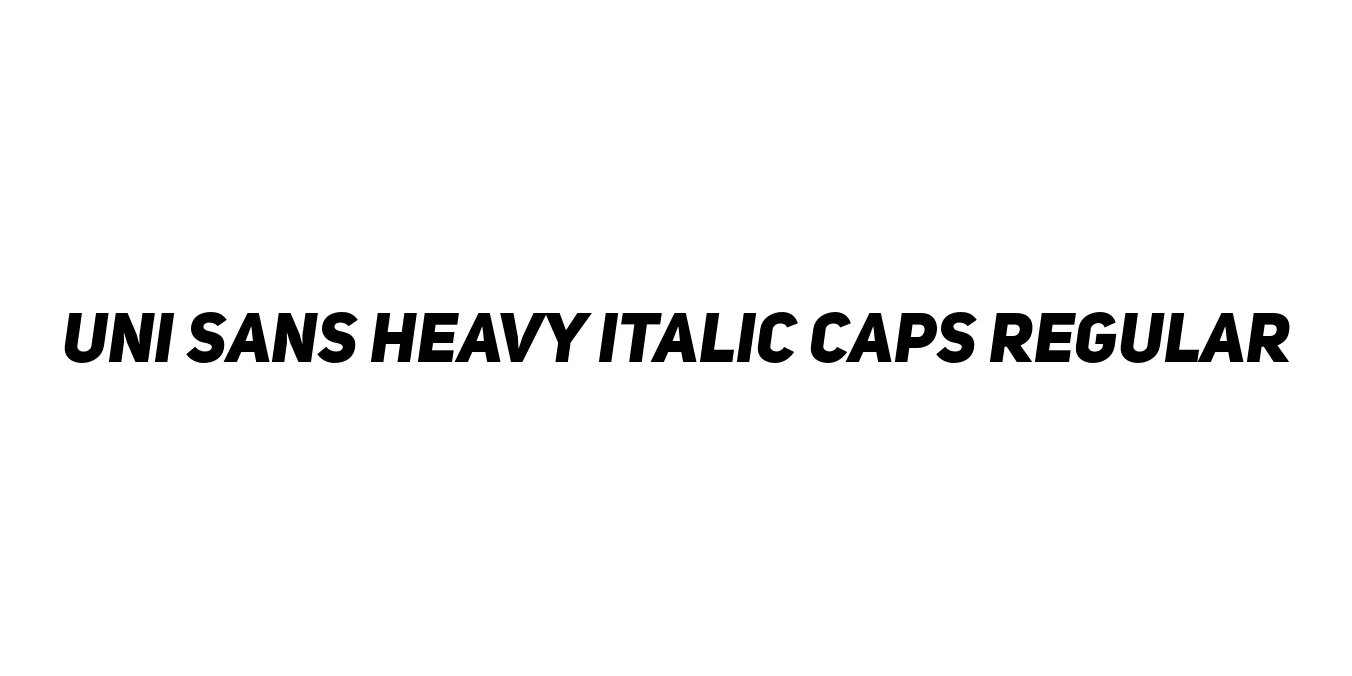
Uni Sans Heavy Italic CAPS Regular
Designed by Svet Simov
Uni Sans Heavy Italic CAPS Regular is a powerhouse of a typeface designed by Svet Simov for the Fontfabric type foundry. Characterized by its geometric forms and robust weight, this specific variation emphasizes speed and modernism through its sleek italic slant and all-caps construction. It belongs to the broader Uni Sans family, which is widely recognized for its exceptional legibility across both digital and print mediums.
This font is particularly effective for high-impact visual communication. The bold strokes and precisely engineered curves make it a favorite for contemporary branding and editorial design. Whether used in sports graphics or tech-oriented marketing, Uni Sans Heavy Italic CAPS delivers a sense of urgency and professionalism that few other display fonts can match.
Uni Sans Heavy Italic CAPS Regular Best Uses
Ideal for creating strong, recognizable logos and brand identities.
Perfect for jersey numbers, team logos, and action-oriented posters.
Excellent for high-visibility hero sections and call-to-action buttons.
Great for large-scale outdoor advertising and promotional banners.